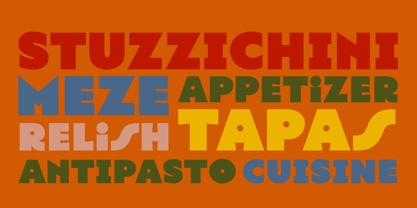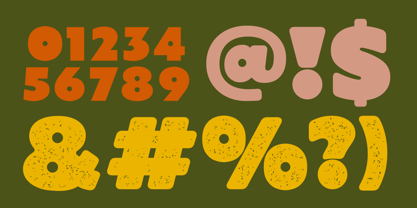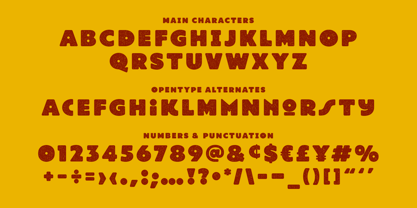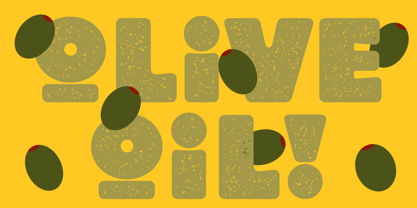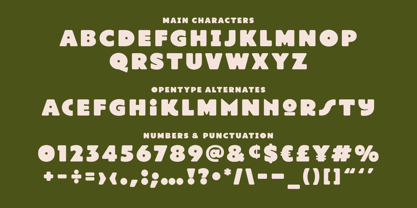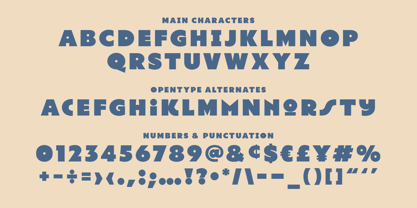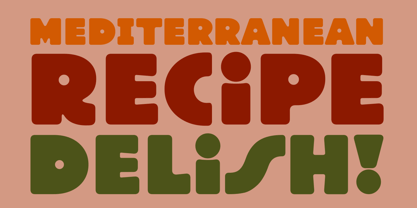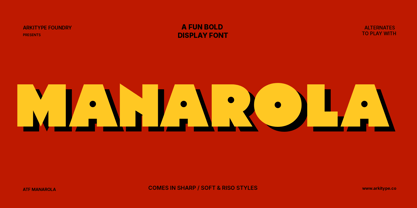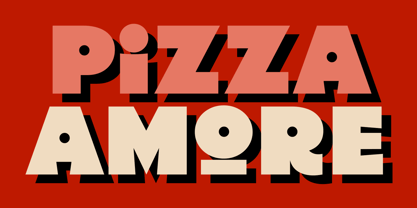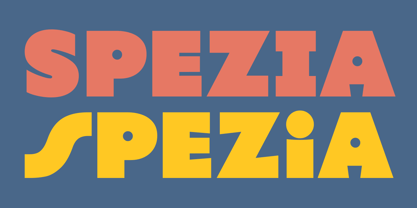
ATF Manarola
ATF Manarola is a vibrant and bold display typeface inspired by the charm of vintage Italian signage and typography. This versatile font family offers three distinct styles: Regular, Soft, and Soft Riso, allowing for a range of expressive typography. With numerous alternates available, ATF Manarola enhances your design flexibility, making it ideal for headings, branding systems, packaging, and various other creative applications. Its unique character and playful design elements ensure that your projects stand out with personality and flair.